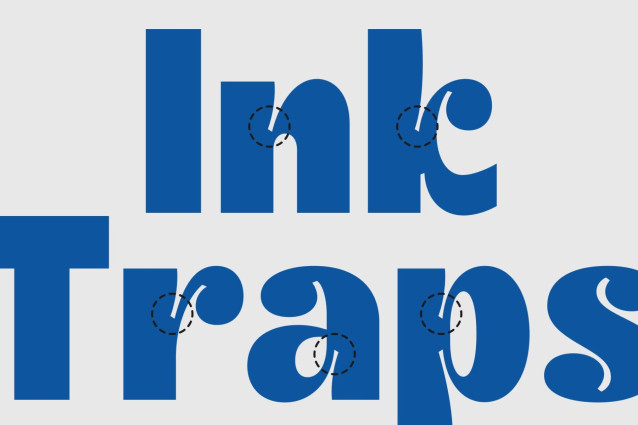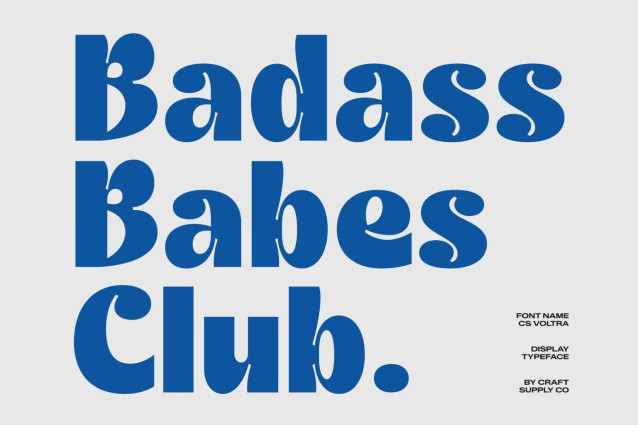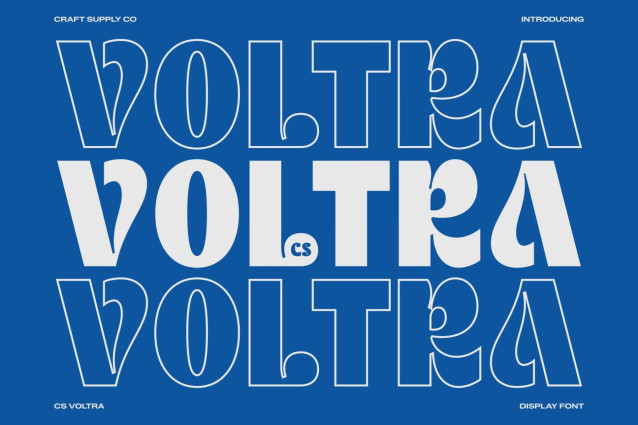
CS Voltra – Inktrap Font
CS Voltra – Bold Display Sans Serif Font: Where Playful Rounded Forms Meet Innovative Inktrap Design
Thick Letterforms with Friendly Character
This is a bold display sans serif font designed to make a memorable impression through its thick shapes and rounded terminals. Its sturdy construction creates a strong visual presence, while the soft curves and rounded tips introduce a friendly and approachable personality. This unique combination gives the font a cute yet confident character that feels both modern and expressive.
Innovative Inktrap Design with Distinctive Appeal
This font transforms functional typographic features into eye-catching design elements. These carefully crafted cuts and openings add depth, uniqueness, and visual interest to each letterform while maintaining clarity and readability.